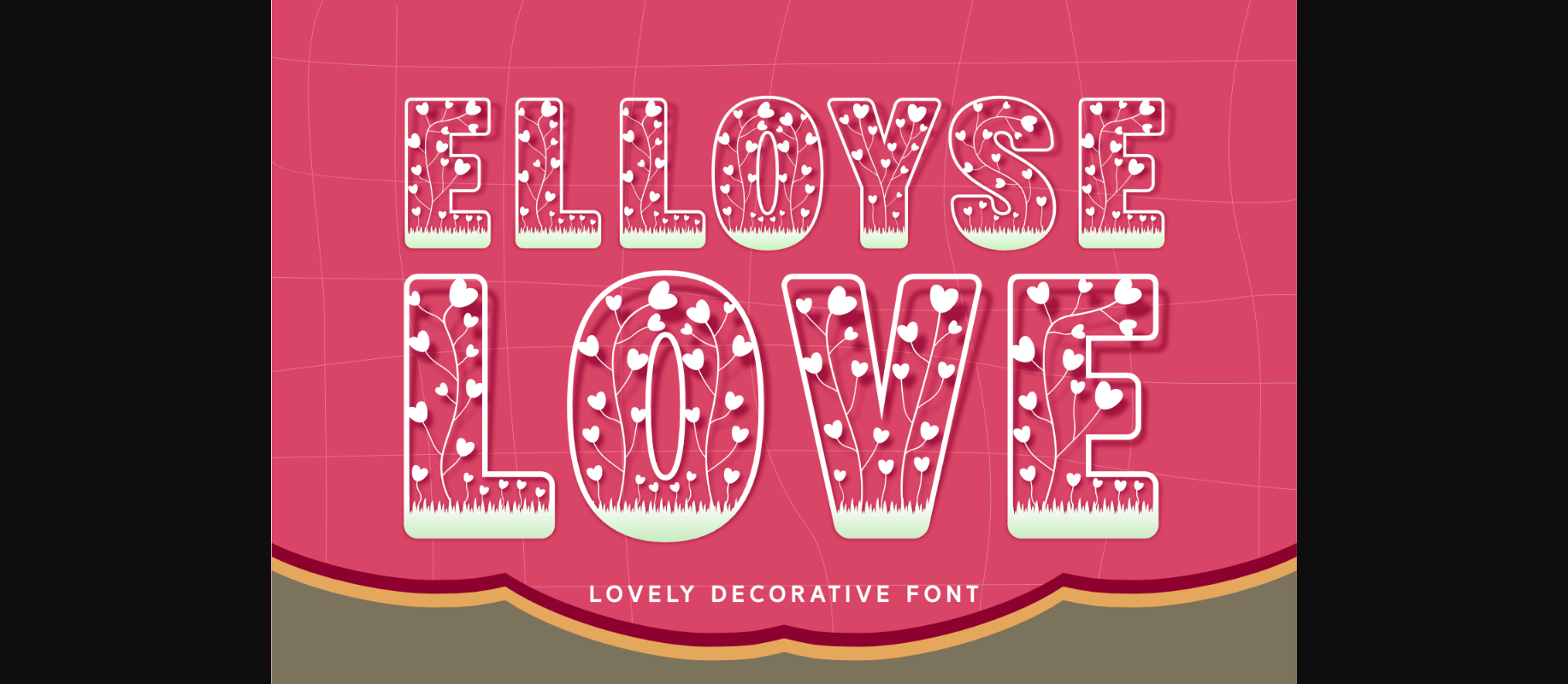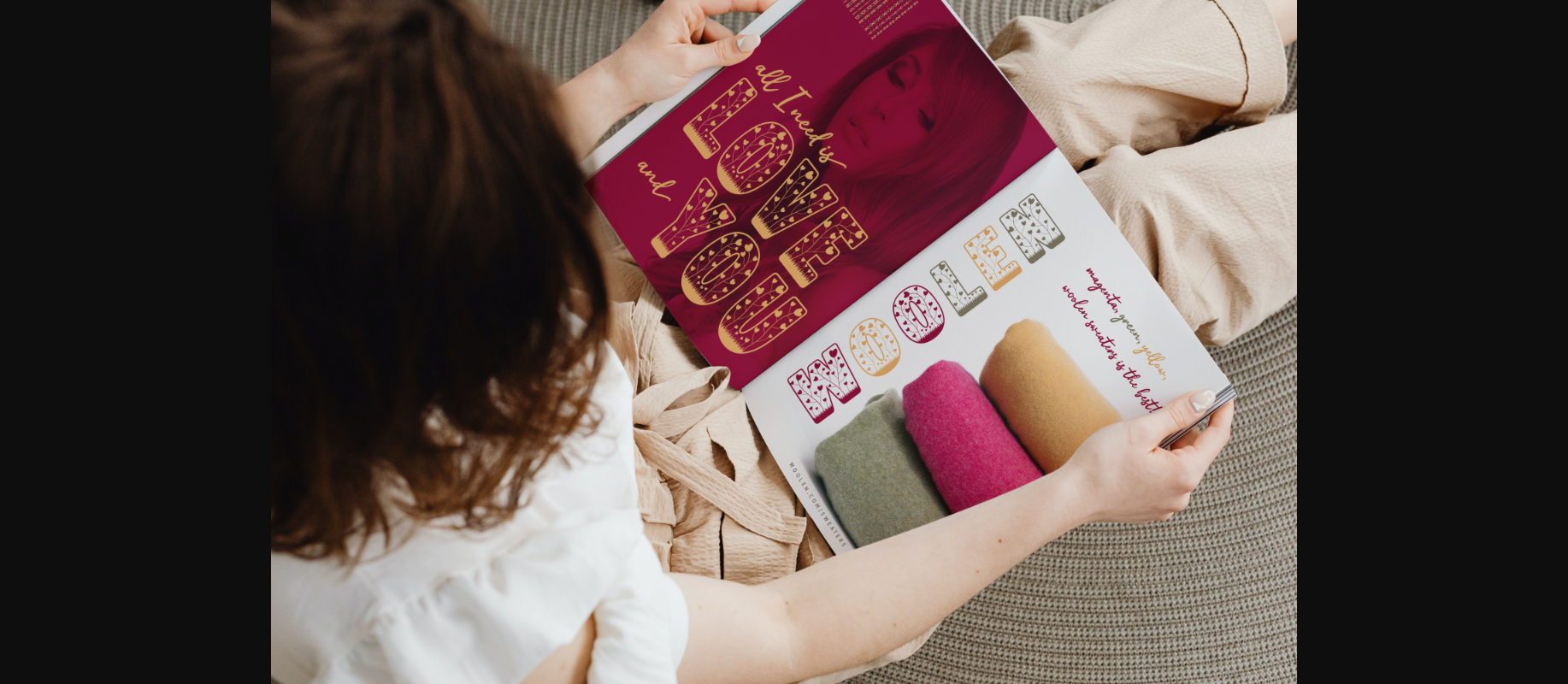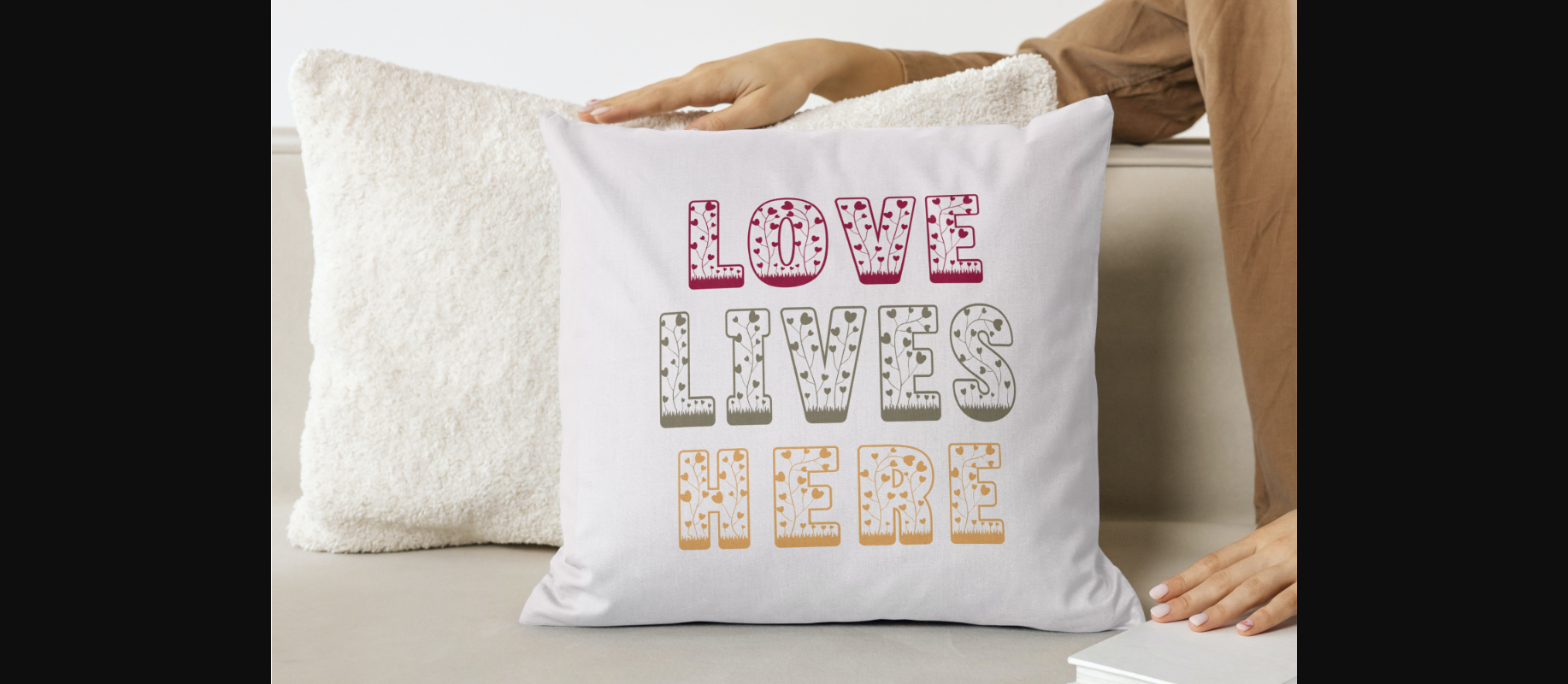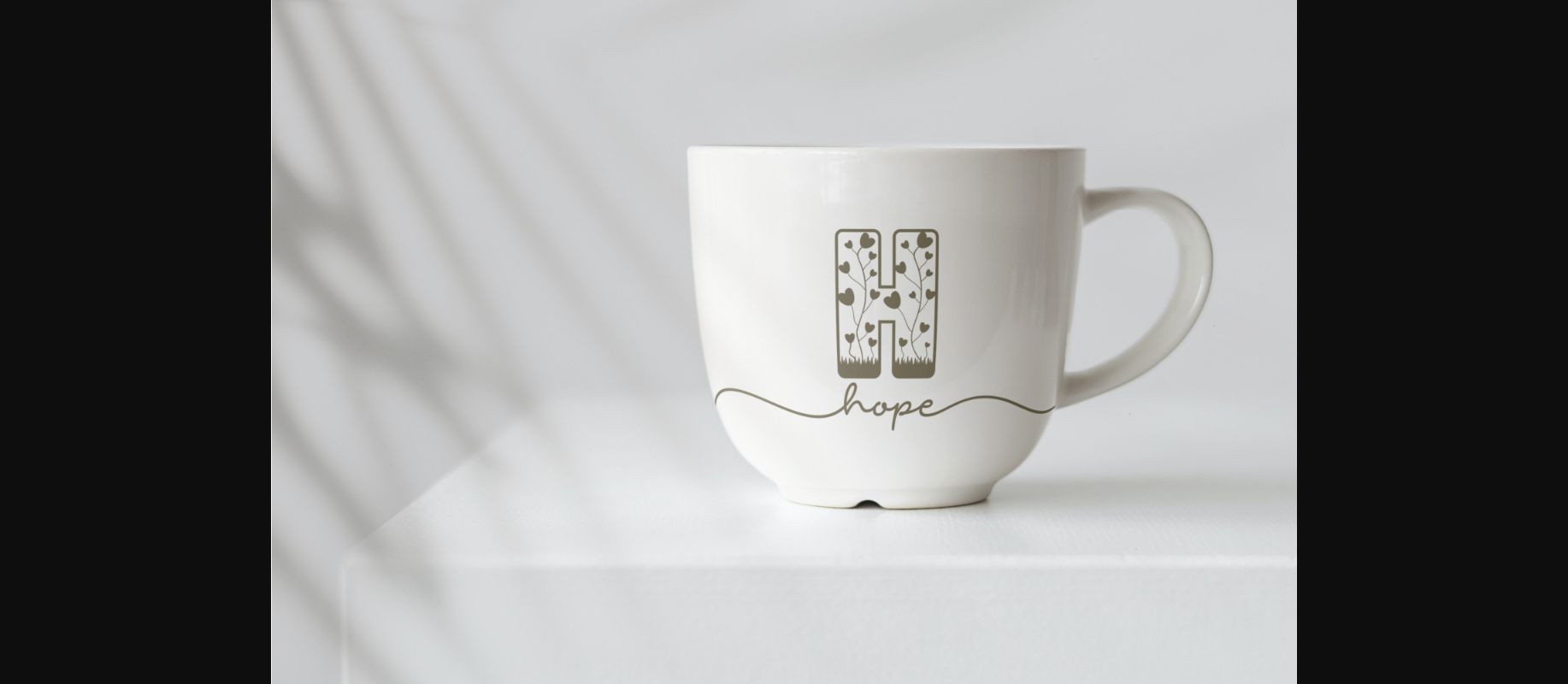
Elloyse Love Font
About Elloyse Love Font
Elloyse Love is a charming and elegant decorative font, perfect for adding a touch of sophistication to your designs. With its flowing lines and playful details, this font will bring a touch of whimsy to your invitations, posters, and social media posts. Use it to create unique and memorable graphics that will leave a lasting impression.